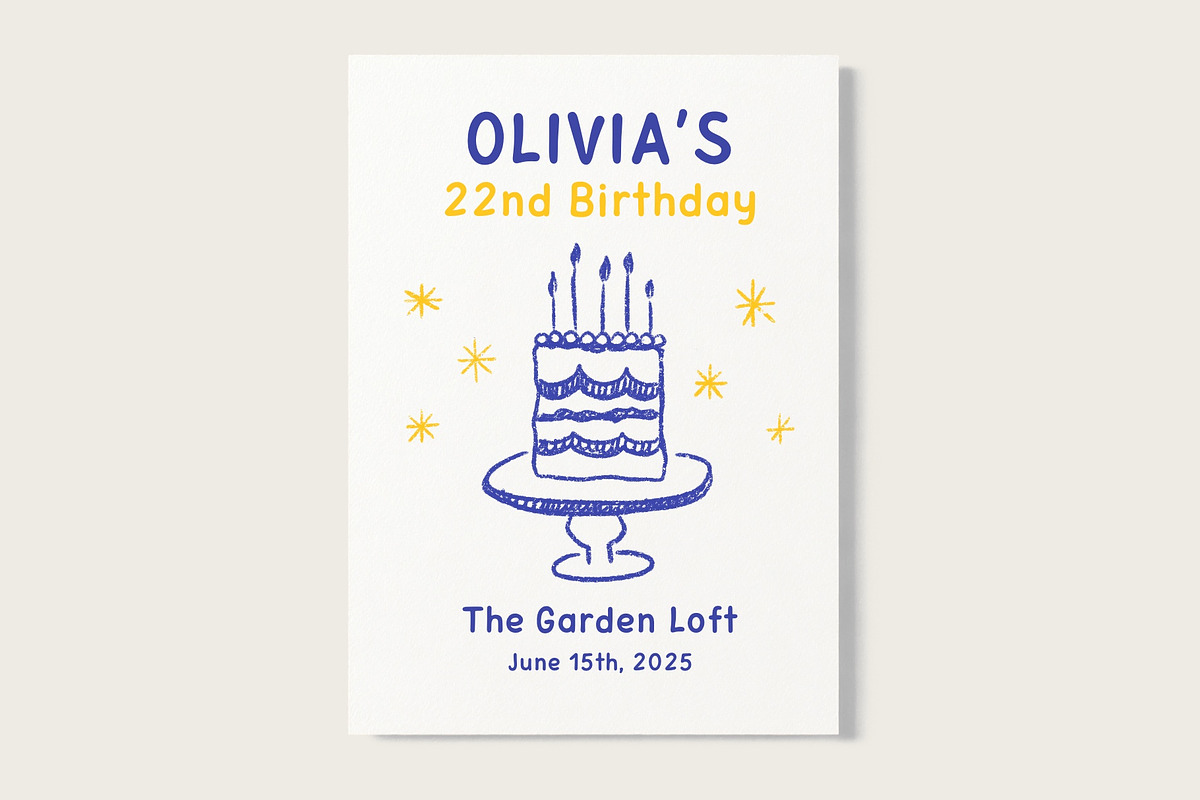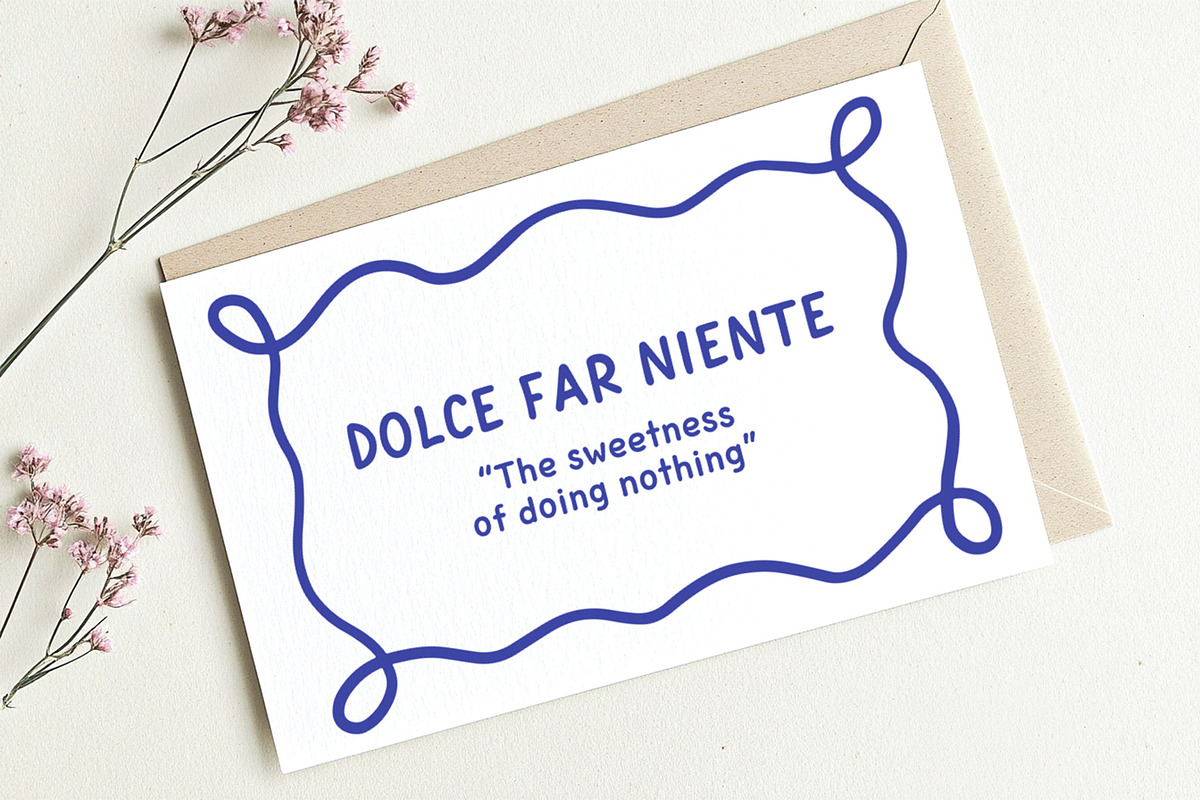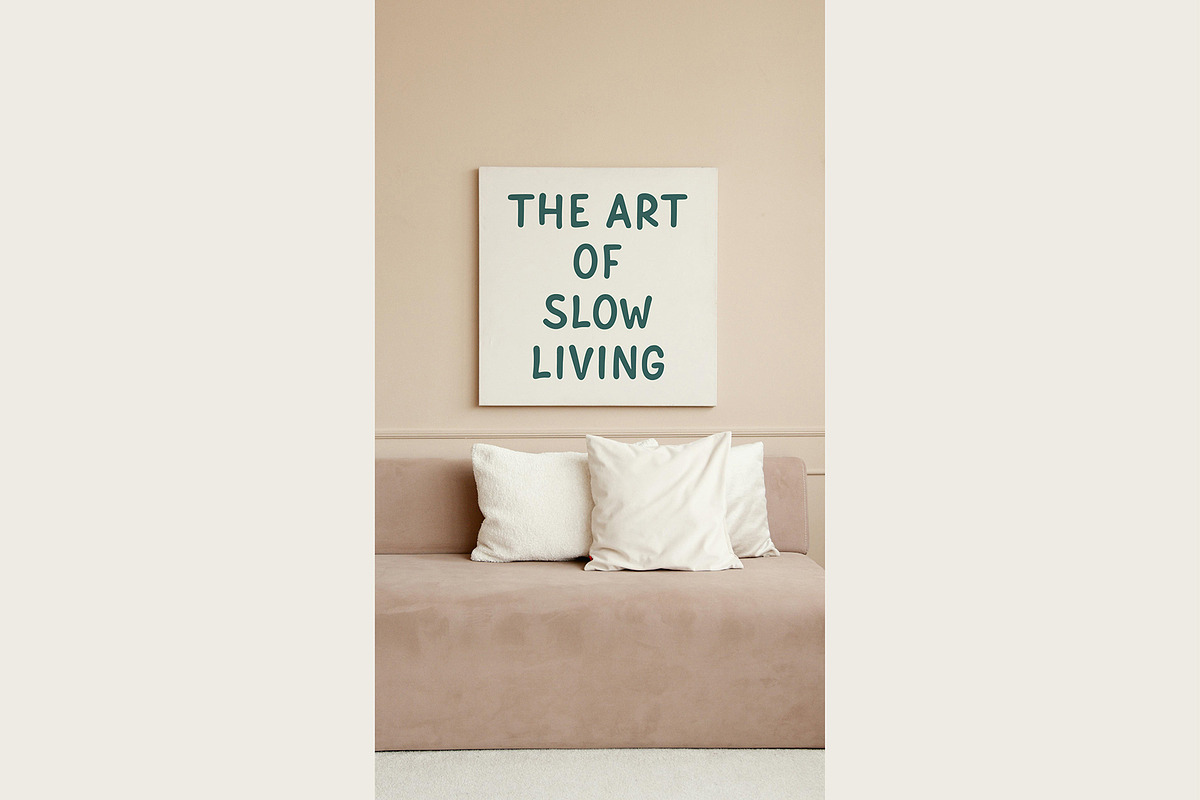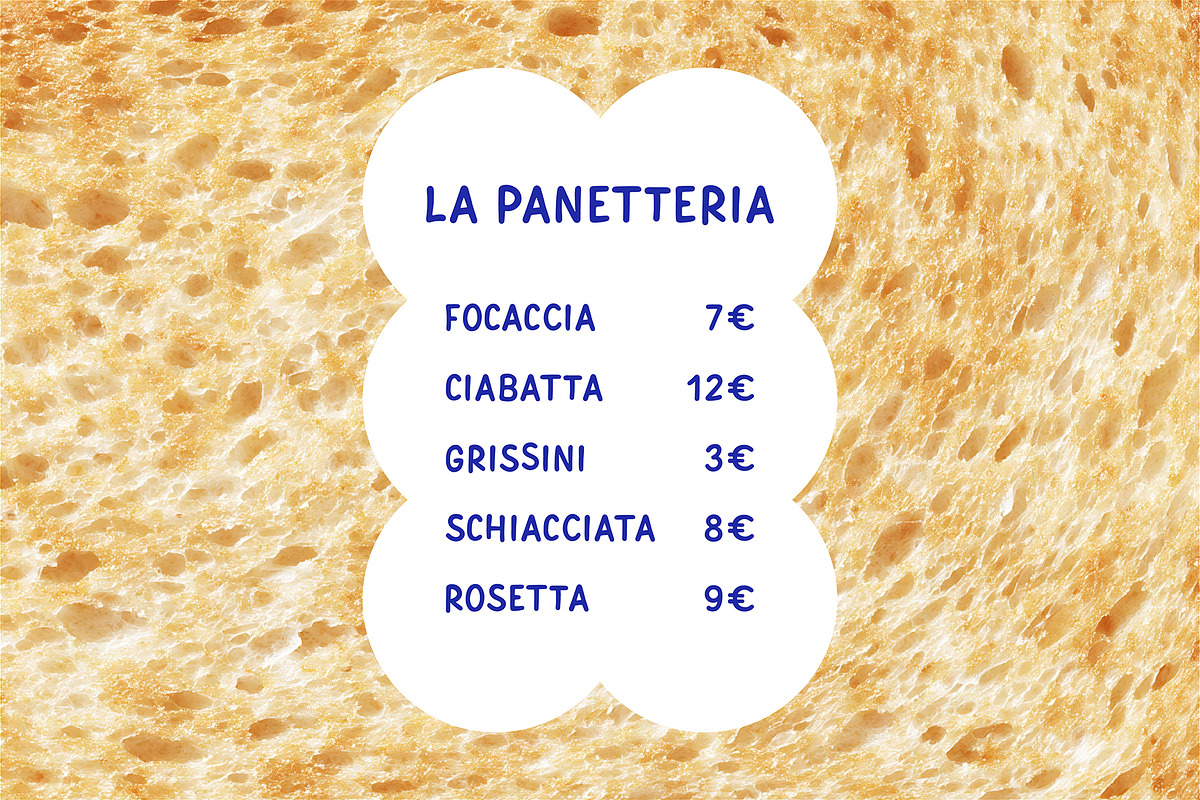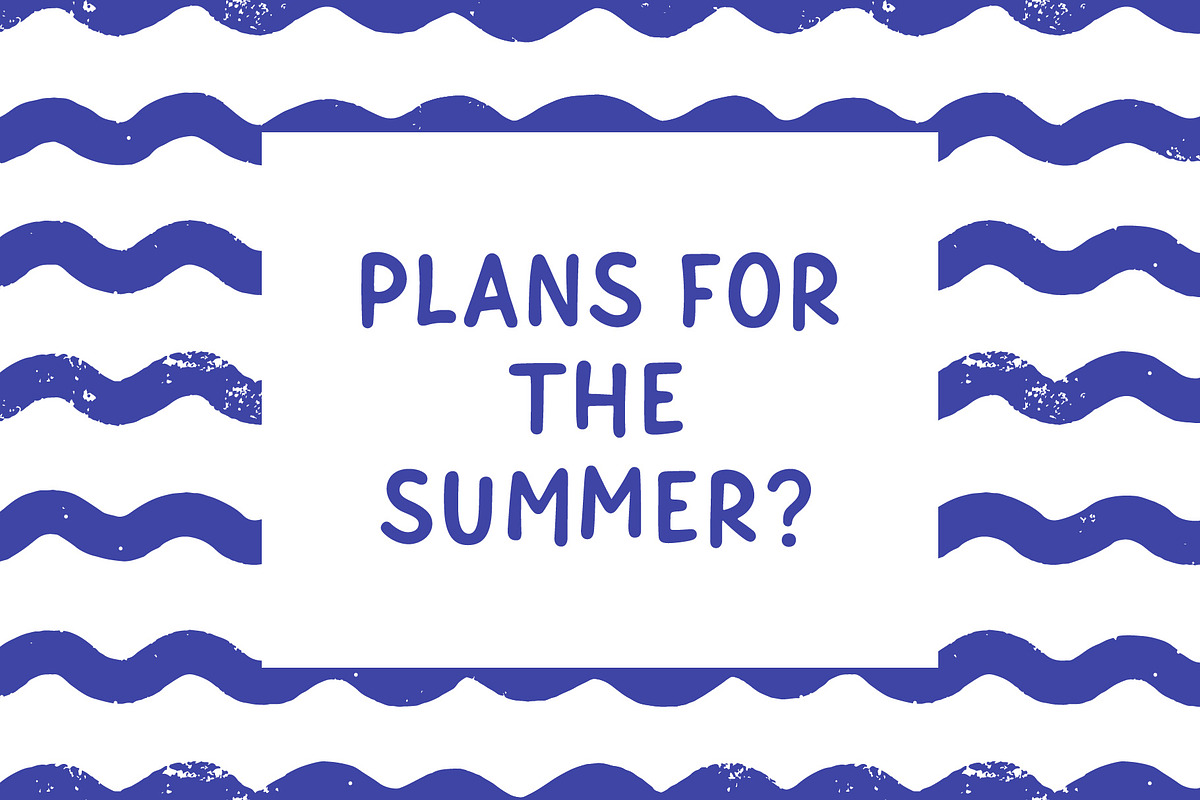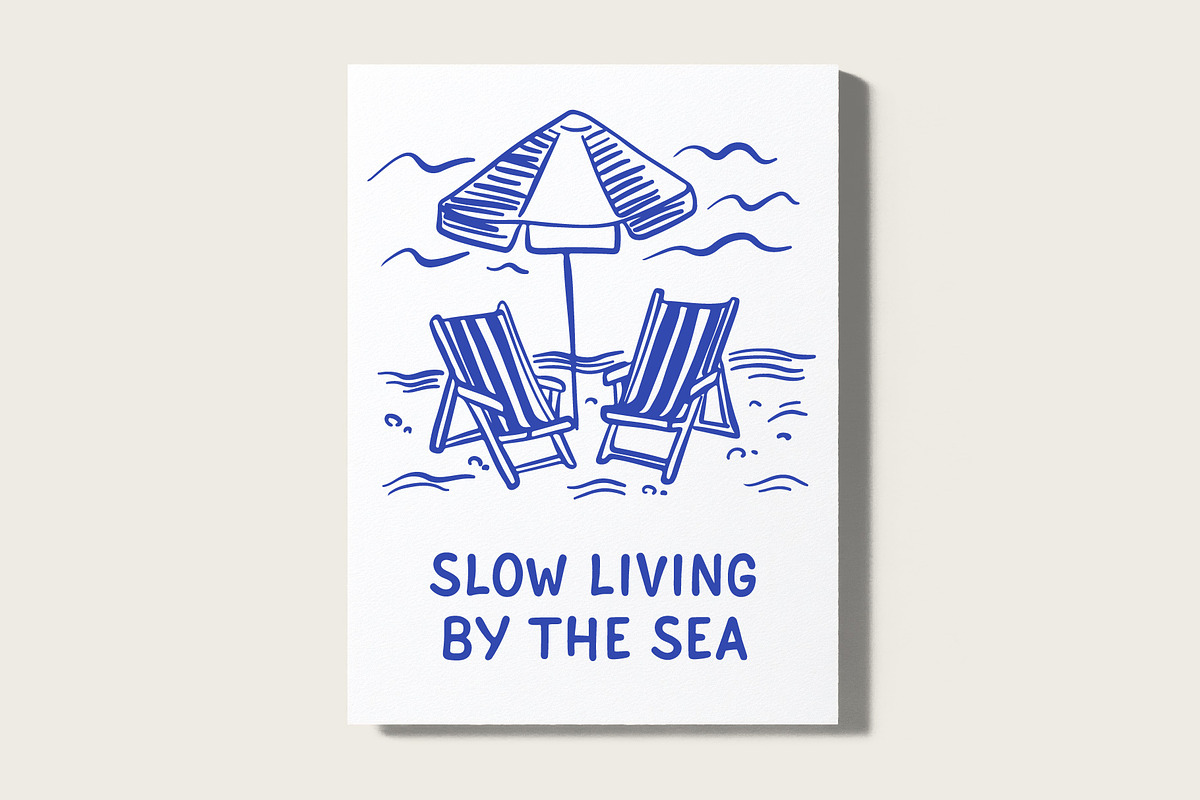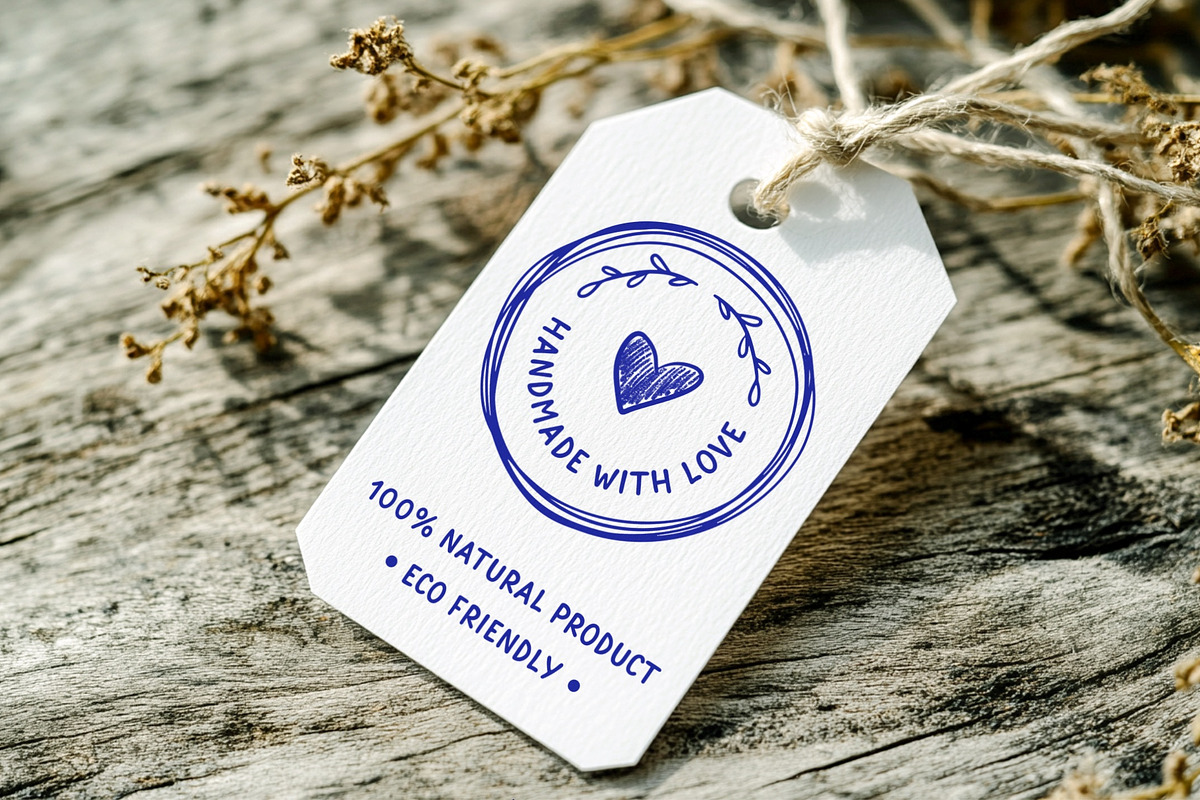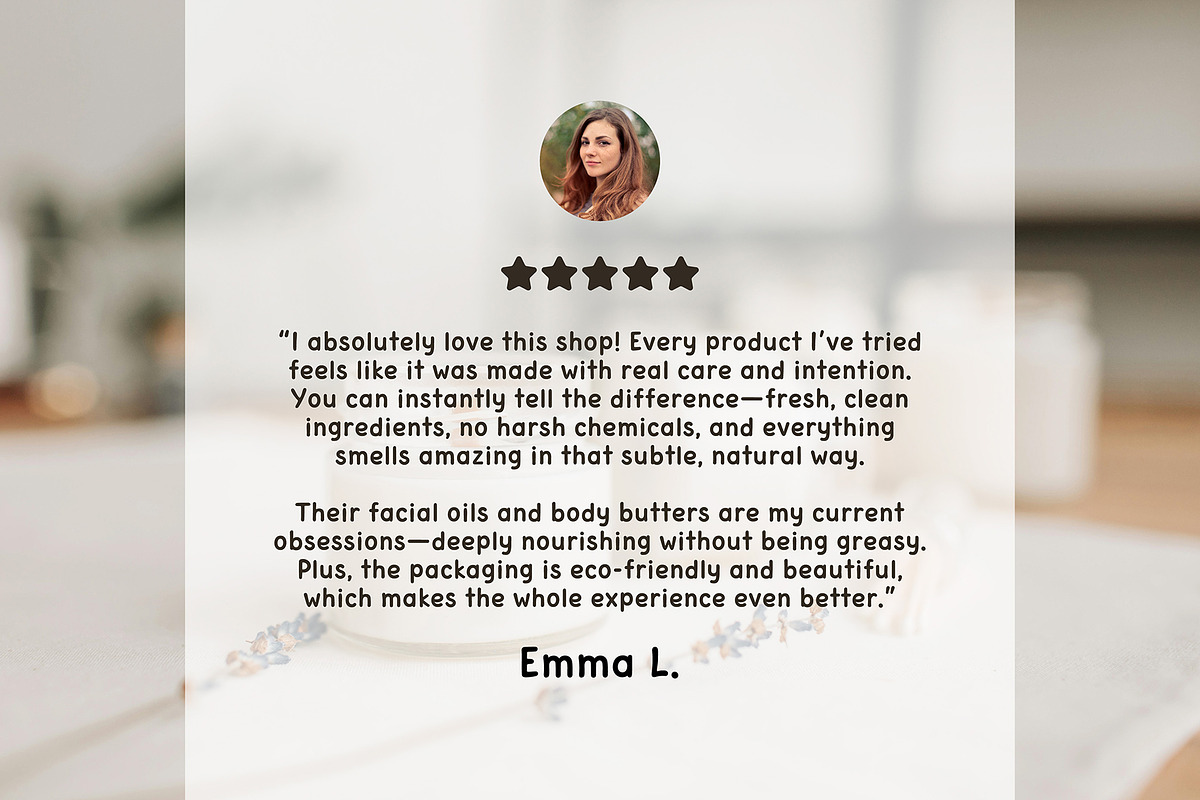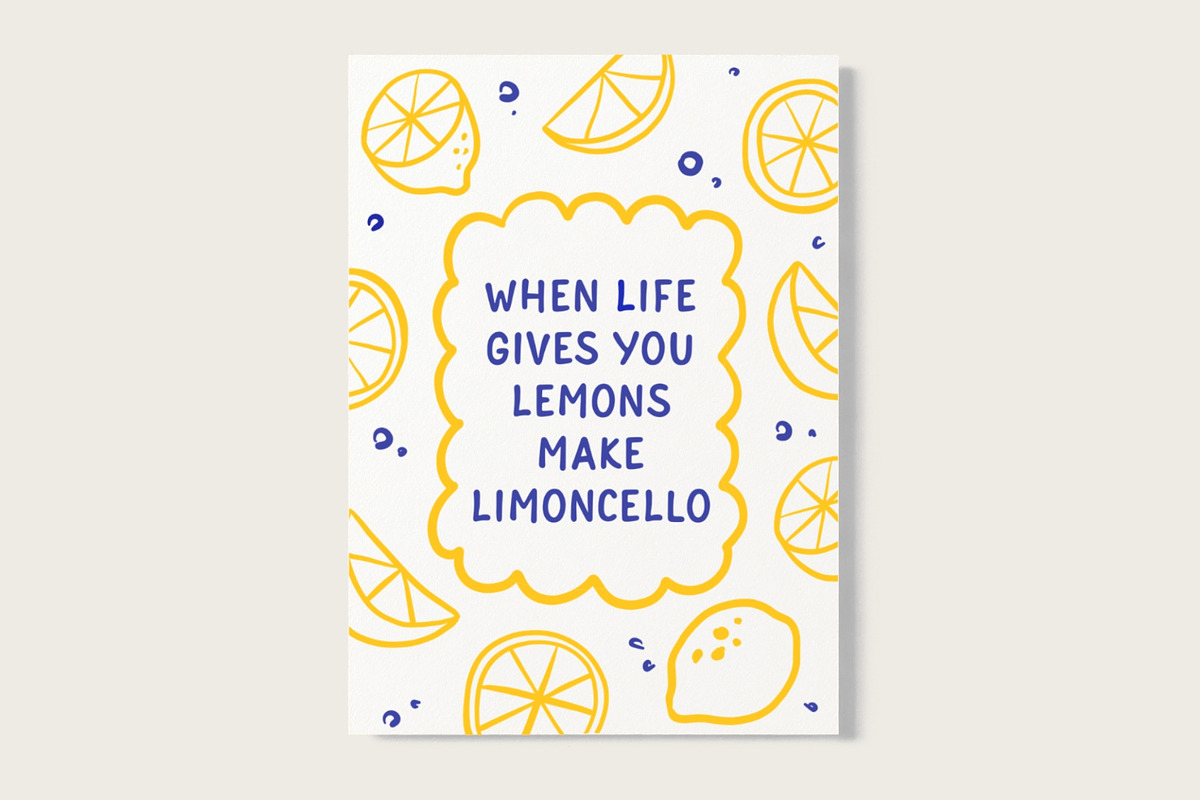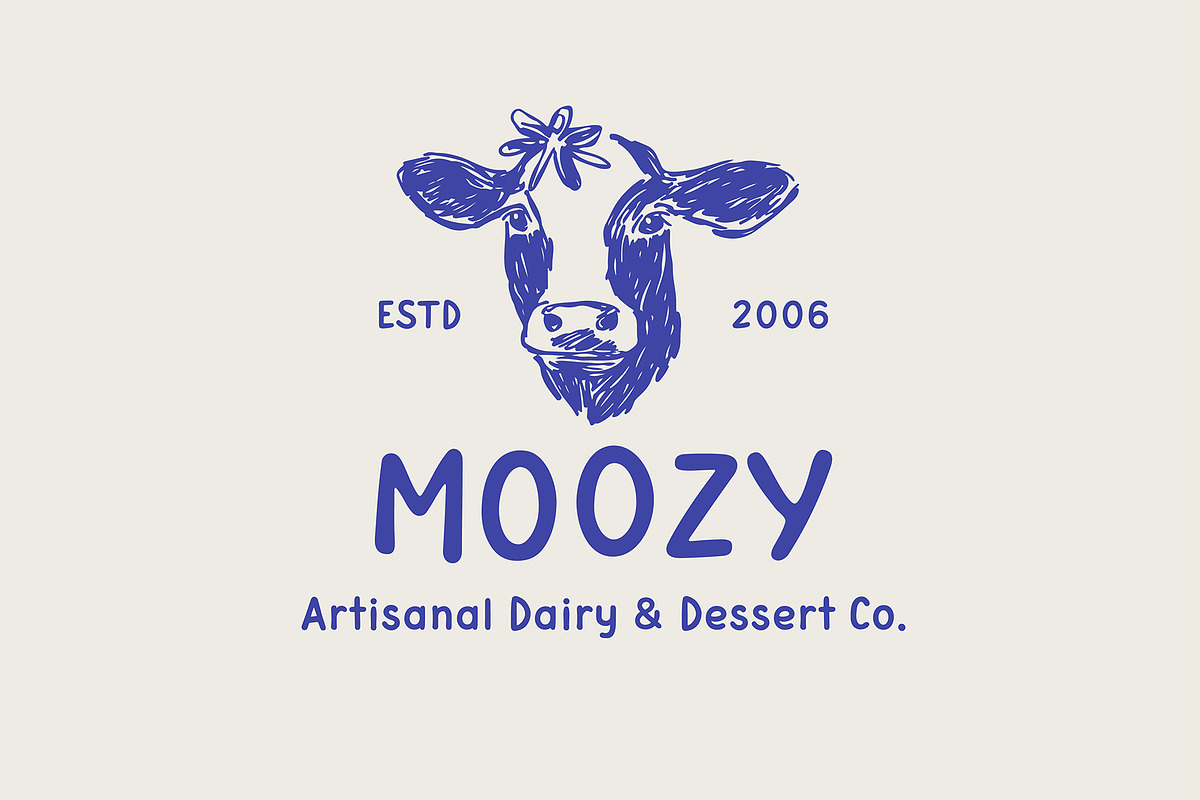
Siena Sans Serif Handwritten Font
Siena Font is a modern handwritten sans serif with a clean, effortless look — perfect for expressing ideas with style and just the right touch of structure.
Siena brings a natural handwritten feel while staying neat and legible, making it ideal for branding, packaging, editorial design, and more. It includes special OpenType ligatures for select uppercase double-letter combinations, giving your typography extra personality and smoothness.
– Handwritten sans serif style
– Uppercase double-letter ligatures (OpenType)
– Works great in both large headings and smaller text